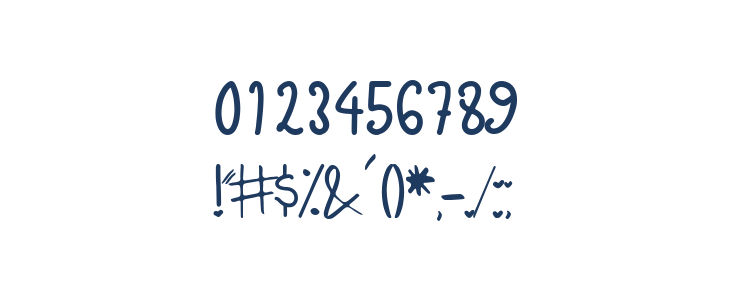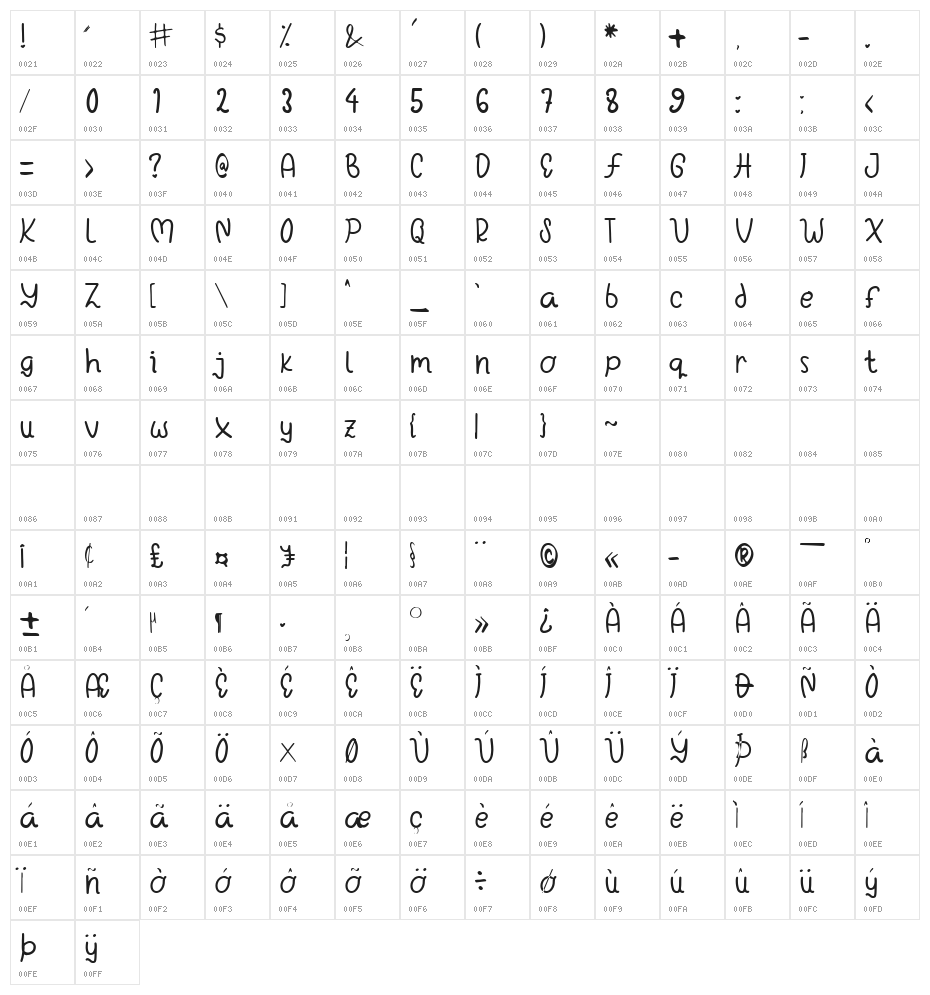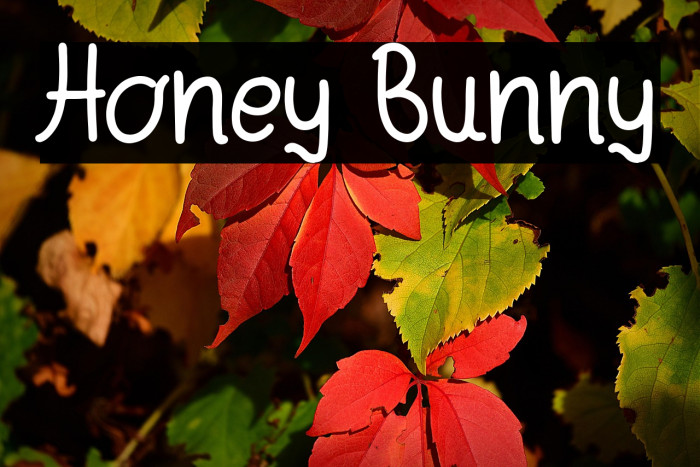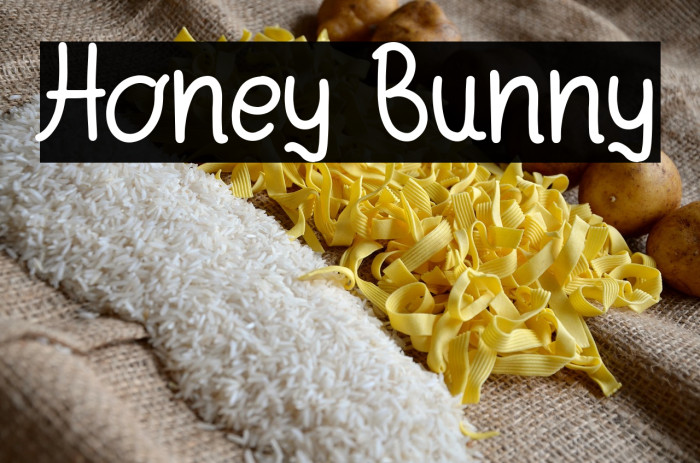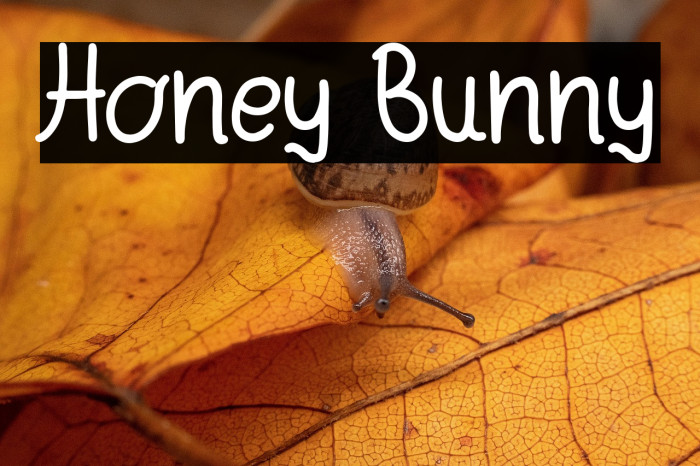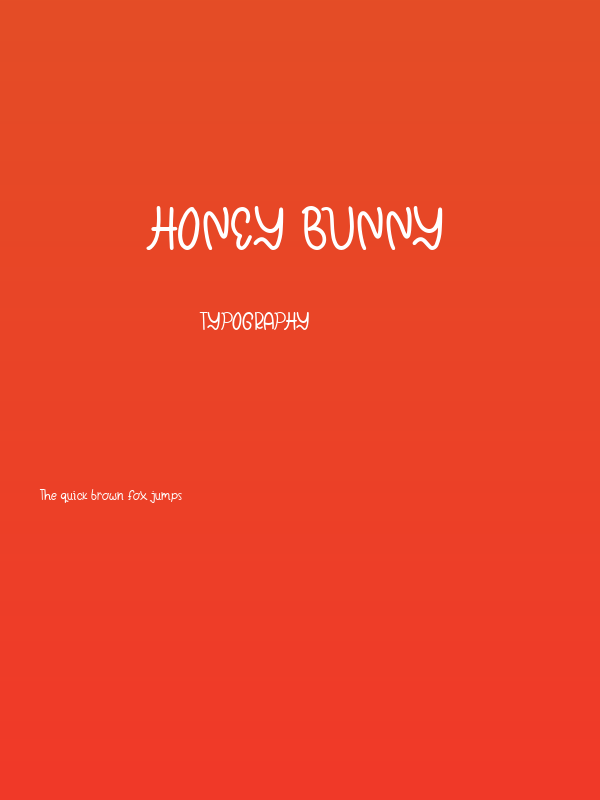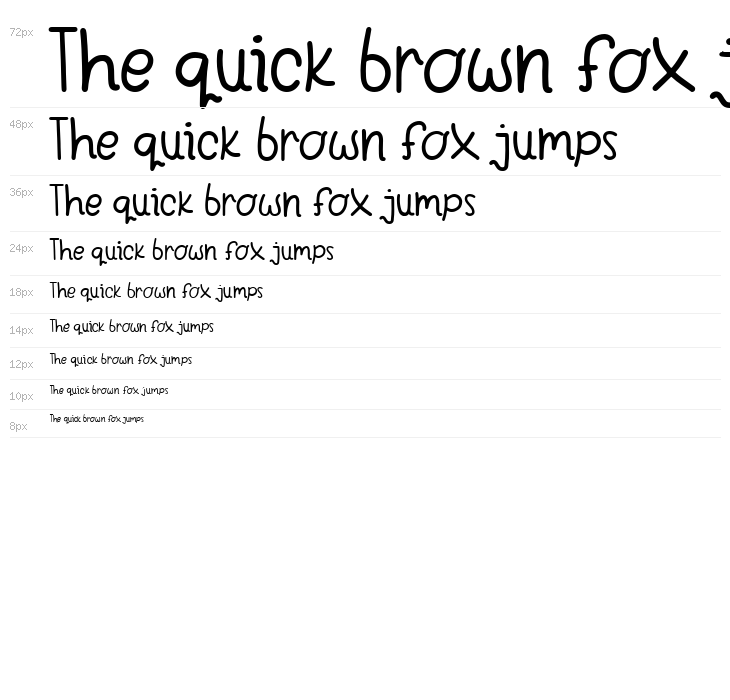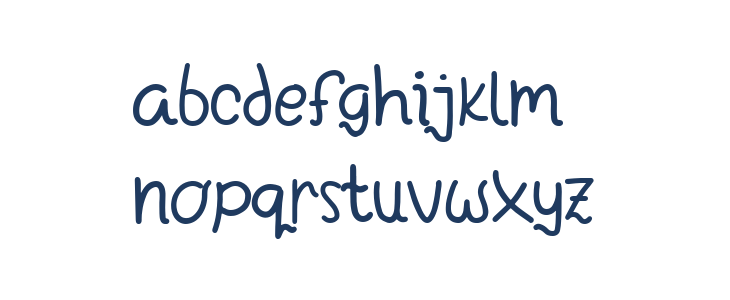
Honey Bunny Font
Honey Bunny Description
This playful and whimsical font features a handwritten style with a casual and friendly appearance. The letters are slightly rounded with a consistent stroke width, giving it a smooth and approachable look. The uppercase and lowercase letters maintain a uniform style, with a slight slant that adds to its informal charm. The numbers and special characters are designed to match the overall aesthetic, making it versatile for various uses. The font's simplicity and readability make it suitable for both digital and print media, where a personal touch is desired.
| Proposed Projects | Ideal for children's books, greeting cards, playful branding, and social media graphics. |